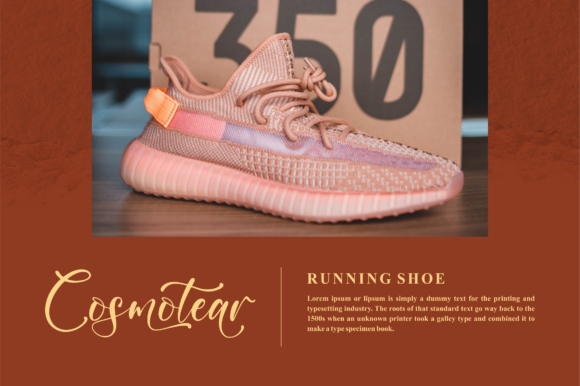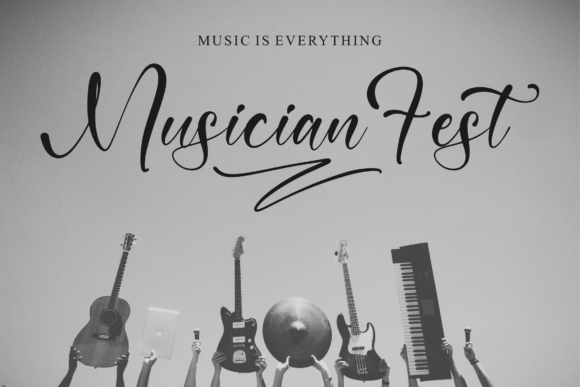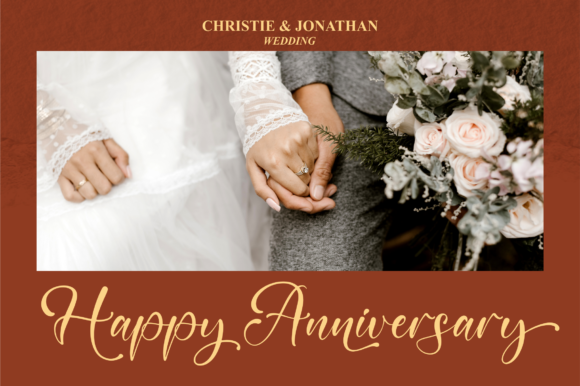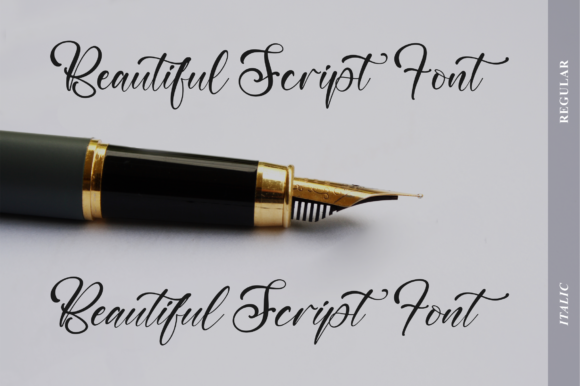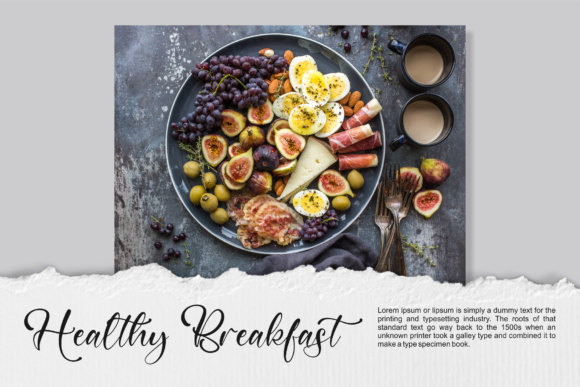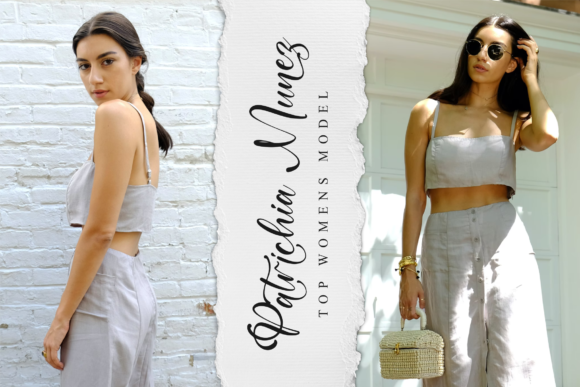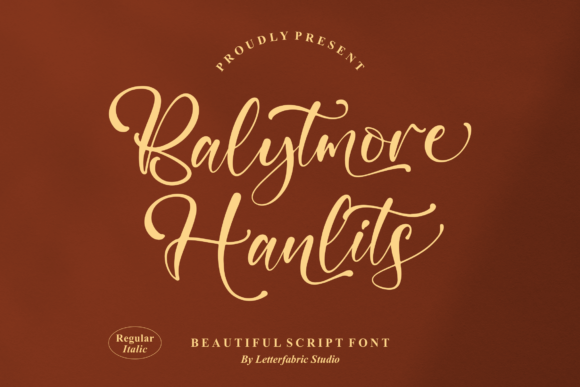
Introducing Balytmore Hanlits Font: Elevate Your Designs with Elegance
In the world of design, fonts play a pivotal role in conveying the essence and aesthetic of a project. Whether you’re crafting a logo, working on a branding project, designing labels, capturing moments through photography, adding a watermark, or planning a special event, the right font can make all the difference. This is where Balytmore Hanlits comes into play – a stylish and dainty script font that is poised to add a touch of elegance to any project.
What Makes Balytmore Hanlits Special?
Balytmore Hanlits is not just another script font; it’s a versatile and beautiful typeface designed to meet the diverse needs of designers and crafters. Here are a few characteristics that make it stand out:
- Stylish and Dainty: The font boasts a stylish and delicate appearance, perfect for projects that require a touch of sophistication and grace.
- Versatility: It’s suitable for a wide range of projects including logos, branding projects, labels, photography, watermarks, special events, and more.
- PUA Encoded: Being PUA (Private Use Area) encoded, Balytmore Hanlits offers ease of access to all glyphs and swashes, allowing for greater flexibility and creativity in your designs.
Applications of Balytmore Hanlits
The versatility of Balytmore Hanlits makes it an excellent choice for various design projects. Here are some of the areas where this font can truly shine:
- Logos and Branding: Create a lasting impression with a logo that exudes elegance and professionalism. Balytmore Hanlits can help establish a brand identity that is both sophisticated and memorable.
- Labels and Packaging: Add a touch of class to your product labels and packaging with this beautiful script font, making your products stand out on the shelves.
- Photography and Watermarks: Use Balytmore Hanlits to add a watermark to your photos that not only protects your work but also adds a professional touch.
- Special Events: Whether it’s wedding invitations, event posters, or thank-you cards, this font can add a touch of elegance and personalization to your special occasions.
Benefits of Using Balytmore Hanlits
Choosing Balytmore Hanlits for your design projects comes with several benefits:
- Unique Aesthetic: The font’s unique and stylish appearance can help your projects stand out in a crowded design landscape.
- Time-Saving: With its PUA encoding, you can easily access a wide range of glyphs and swashes, saving you time and effort in your design process.
How to Make the Most of Balytmore Hanlits
To truly leverage the potential of Balytmore Hanlits, consider the following tips:
- Experiment with Swashes: Don’t hesitate to play around with the various swashes and glyphs available. This can help you create a truly unique design that captures the essence of your project.
- Pair it Wisely: Font pairing is an art. Experiment with Balytmore Hanlits in combination with other fonts to find the perfect balance for your design.
- Adjust and Customize: Don’t be afraid to adjust the font size, color, and spacing to ensure it perfectly complements your project.
Balytmore Hanlits is more than just a script font; it’s a design element that can elevate your projects to new heights of elegance and sophistication. Its versatility, combined with the ease of use provided by its PUA encoding, makes it an excellent choice for designers and crafters looking to add a touch of class to their work. Whether you’re working on a logo, a branding project, or any other design endeavor, Balytmore Hanlits is sure to make a lasting impression.